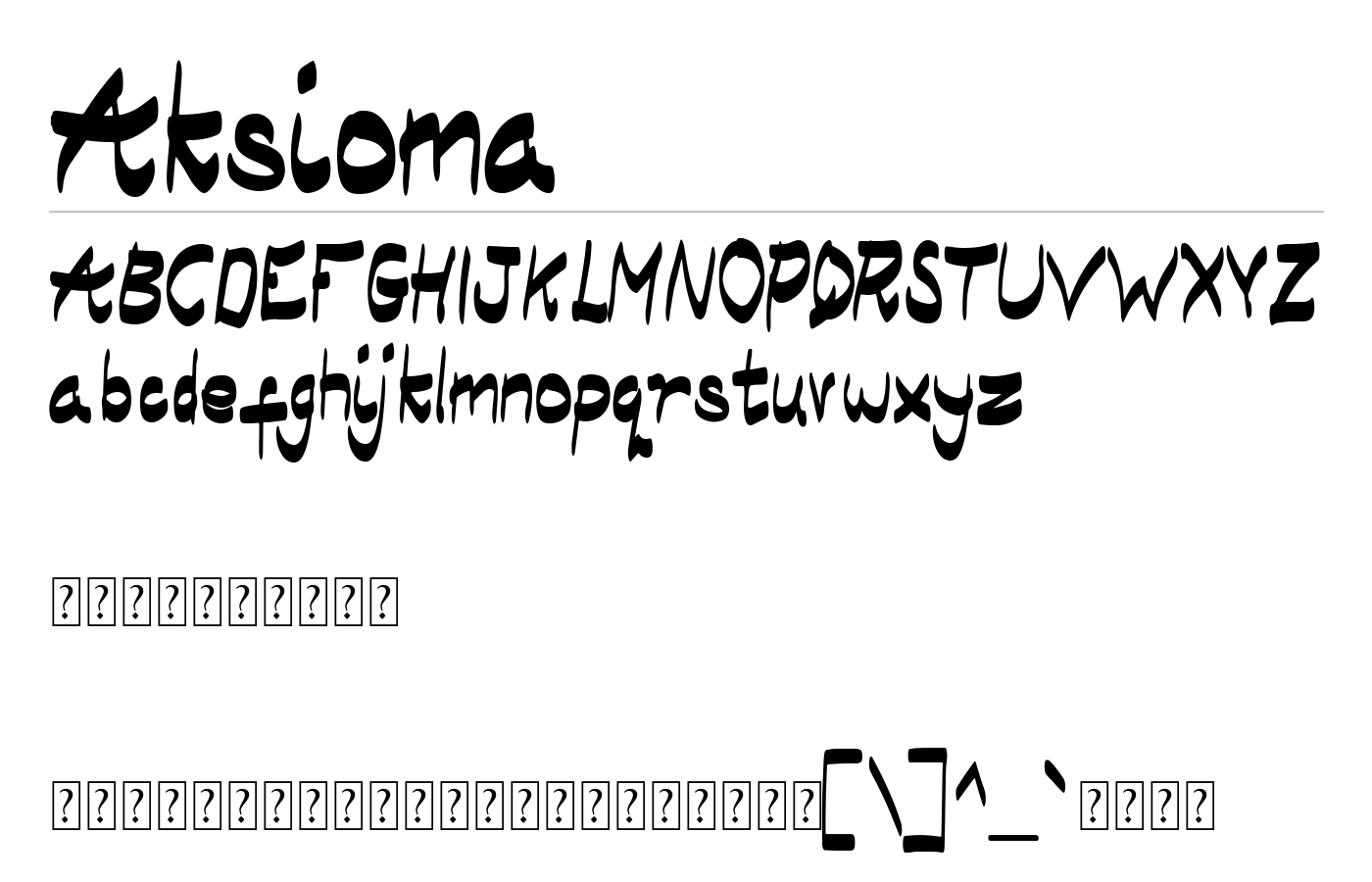
Aksioma is a distinctive handwritten font with bold, irregular strokes that give it a playful yet slightly edgy personality. Its tall, narrow letterforms combined with varied stroke thickness create a unique, informal style well suited for creative projects, posters, and branding that seeks a personal or artistic vibe. This font works best where an eye-catching, unconventional look is desired, adding character and energy to headlines and display text.
Aksioma Font